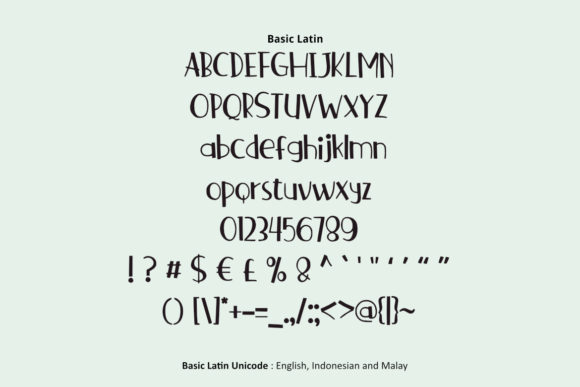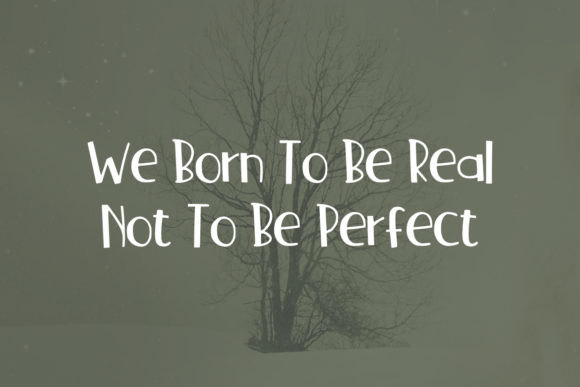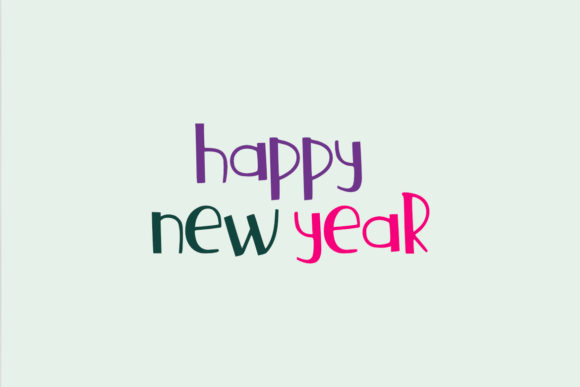
Introduction to Snow Dew Font
Snow Dew is a modern handwritten font, carefully handcrafted to become a true favorite.
Its casual charm makes it appear wonderfully down-to-earth, readable and, ultimately, incredibly versatile Snow Dew will look outstanding in any context, whether it’s being used on busy backgrounds or as a standalone headline.
Key Features of Snow Dew Font
Why Choose Snow Dew Font?
Snow Dew Font offers exceptional quality and versatility, making it a valuable addition to your design toolkit. Whether you’re creating for personal projects or commercial use, Snow Dew Font delivers professional results.